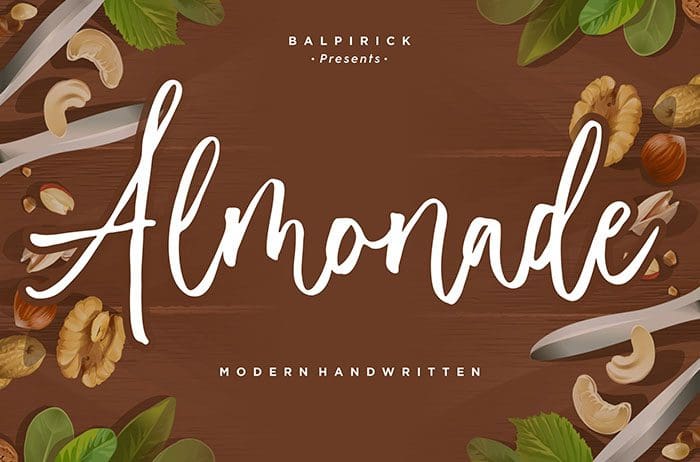
Almonande Modern Handwritten Font
Almonande modern handwritten font is a cute and casual with an incredibly friendly feel. Whether you’re looking for fonts for Instagram or calligraphy scripts for DIY projects, this font will turn any creative idea into a true piece of art! Designed this font by Balpirick Studio. You can also search more free Handwritten Fonts. We hope you enjoy this font.